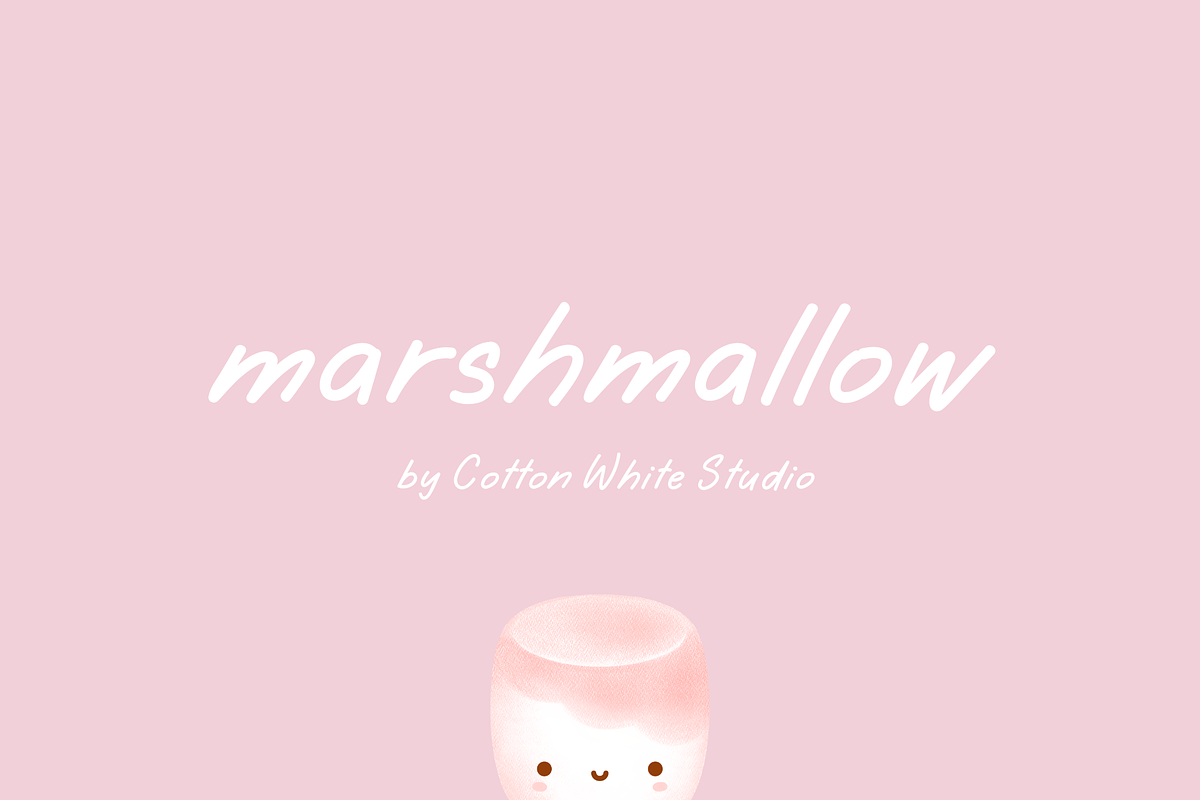
Marshmallow Font Free Download is a soft, sweet, and playful typeface that brings joy and lightheartedness to any design. Inspired by the fluffy treat it’s named after, this font is perfect for children’s projects, bakery branding, party invitations, social media graphics, and anything that needs a fun, whimsical touch.
Its rounded edges and bubbly letterforms make it approachable and friendly, while still maintaining clarity and balance. Whether you're designing for kids, crafting a pastel-themed logo, or adding charm to packaging, Marshmallow delivers feel-good vibes every time.
Loved by designers for its versatility and cuteness, Marshmallow is the go-to font when you want to make people smile. Add that sugary-sweet style to your creative work—download Marshmallow Font Free Download and make your designs irresistibly delightful.